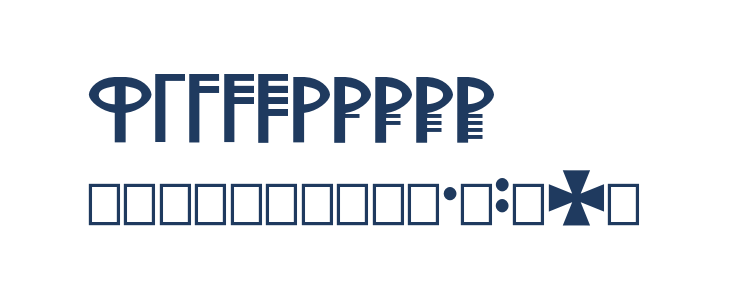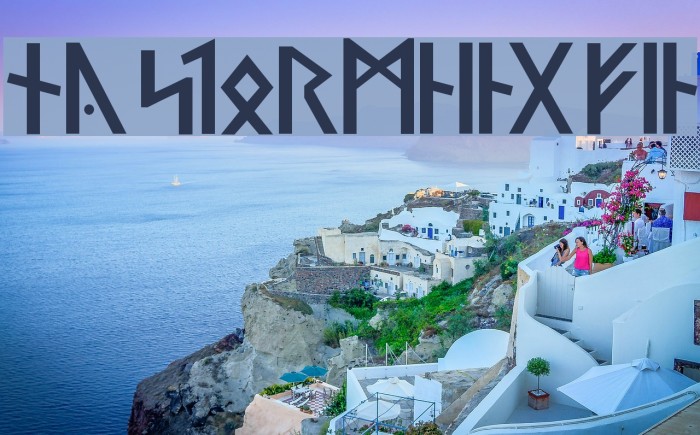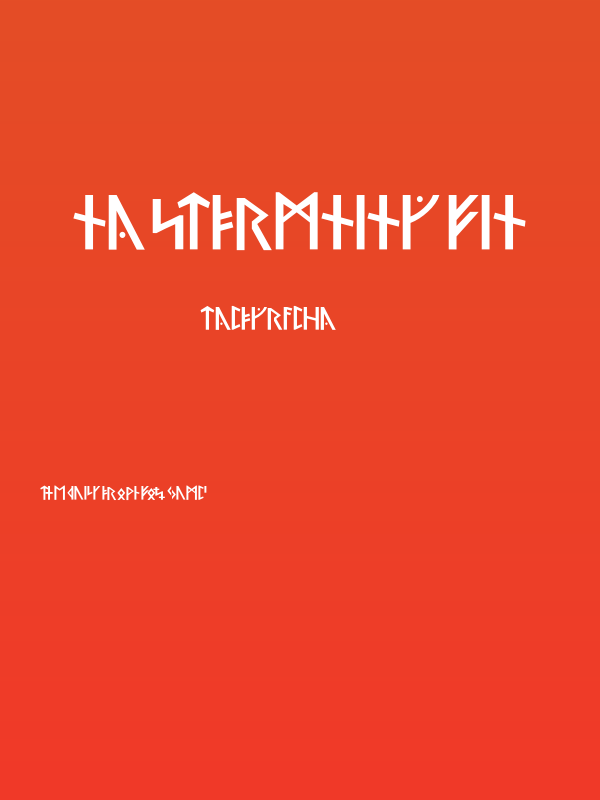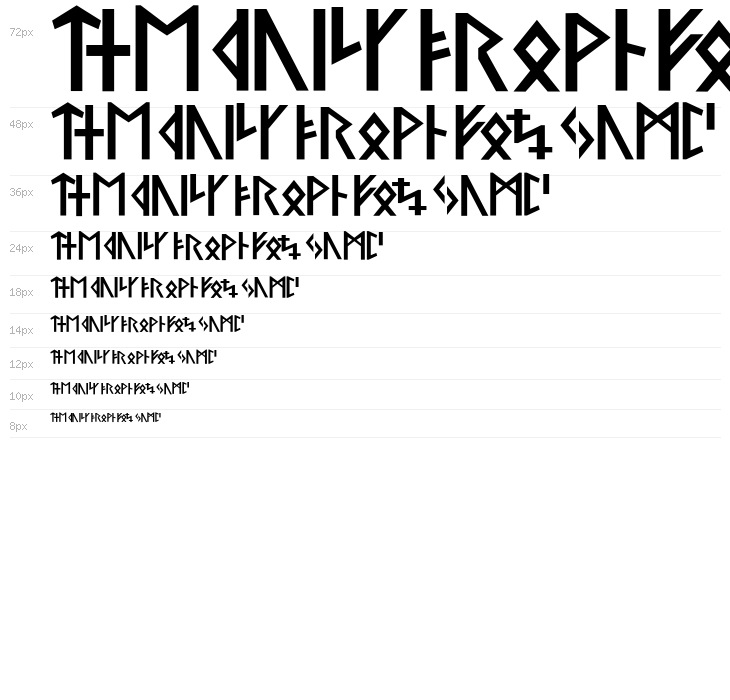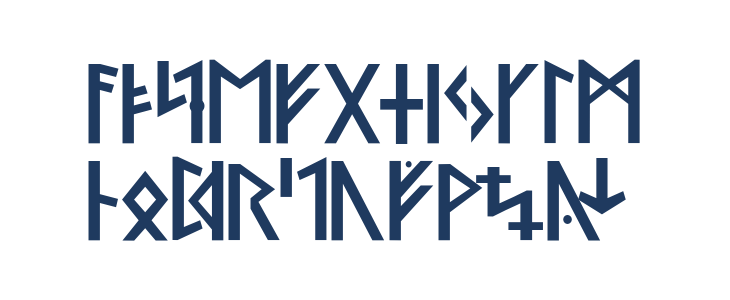
Ny Stormning Fin Font
Ny Stormning Fin Description
This font features a unique, angular design reminiscent of ancient runic alphabets. The characters are composed of straight lines and sharp angles, giving it a bold and striking appearance. Each letter is distinct, with some incorporating additional geometric elements like dots or lines. The overall style is highly decorative and stylized, making it stand out for creative uses. The font does not follow traditional Latin alphabet forms, instead offering a more abstract and artistic interpretation. This makes it ideal for projects that require a historical or mystical aesthetic.
| Use Case | Logos, Posters, Themed Events |
| Proposed Projects | Ideal for fantasy-themed designs, historical recreations, or artistic projects requiring a mystical touch. |